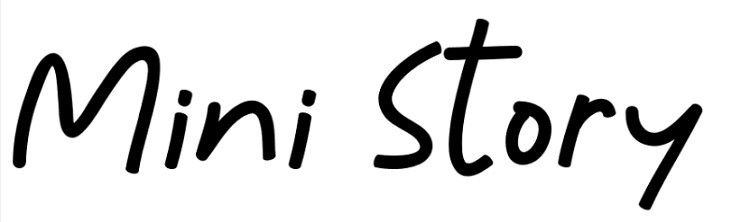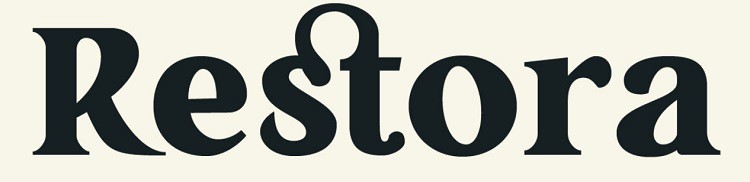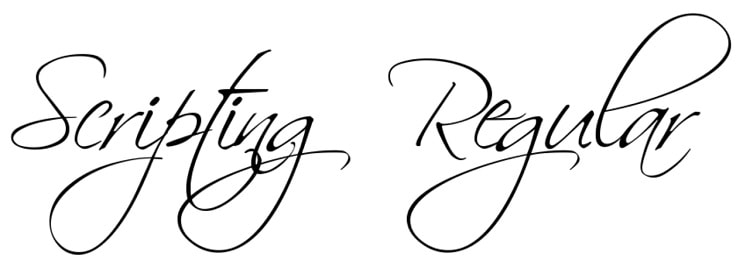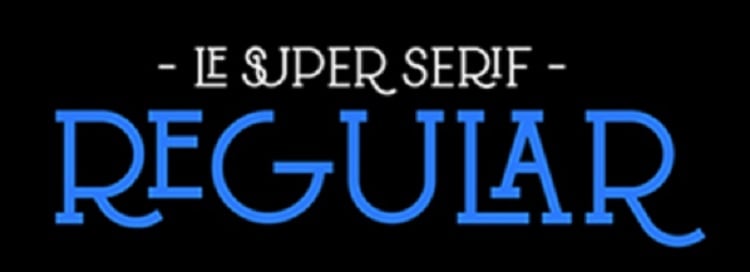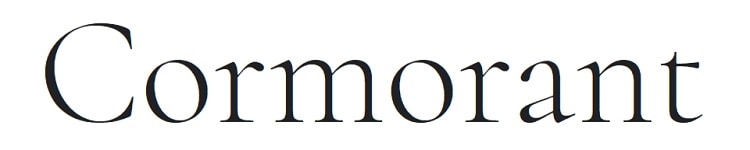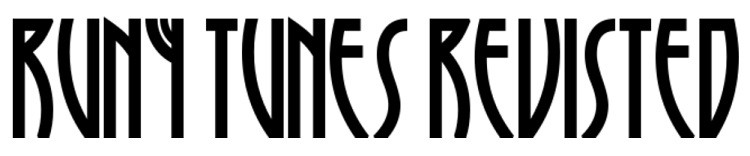
There are tens of thousands of free fonts online for download. Most word processing programs come with pre-installed fonts, Google offers them and you can download them from various repositories and upload to your fonts folder. However, if you want your designs to stand out, you need to have a collection of unusual choices fitting different moods and occasions.
There are four primary kinds of type, and within each typeface, there are hundreds of variations of fonts in different sizes and styles. For example, you might have a font family with serifs and ligatures, but you could have 10 point bold, 12 point italic or 14 point regular text. There are more combinations than you could count.Â
The four types of fonts include serif, sans serif, script and decorative. There are both paid and free fonts available in every category. For this article, we’ve narrowed down your options to 10 truly captivating free fonts you can use. We also list some ideas for where to use each one.
1. The Quick South St
The Quick South St grabs user attention from the minute you see it. The free font has a highly industrial look perfect for manufacturing facilities or industrial businesses. It also has a grunge look that would work for street artists, musicians and other creatives.
The font is by Rodrigo Gonzalex of Southtype and is free for personal and non-profit use. There is a bit of a gray area about usage for commercial ventures, but if you aren’t reselling the font, you should be okay. If in doubt, contact the creator directly. The font is sans serif with grids inside the eye of some letters and the counter of others.
2. Mini Story
Designed by Syaf Rizal, Mini Story is free for personal or commercial use. With a distinct handwritten look, the font has a casual feel of someone jotting down some thoughts. The tail of letters fall well below the baseline, giving the font a tall x-height.
3. Alloy Ink
Alloy Ink is another of the free fonts available for commercial use. The font has a different look to it, giving it a futuristic feel. The letters are more like street art you’d see on the side of the building, with fat strokes and a three-dimensional flare.
Utilize a heavy font for flyers advertising kids’ events or school activities. You could also utilize Alloy Ink for a blog heading when you want the title to stand out in bold relief.
4. Scripting Regular
If you seek free fonts with a bit more formality, Scripting Regular is a gorgeous, loopy font perfect for any serious occasion. The sans serif script font utilizes swooshes for the terminals or peaks of letters and swirls for the tails of others.
The script is flowing and calligraphy-like. Use this font for business logos for companies serving women, wedding planning or other formal occasions. There is no charge to use this font for personal or commercial reasons.
5. Le Super Serif
If you’re looking for a captivating serif font, Le Super Serif adds a ton of interest to any design. This unique letterform features uppercase typeface has a bit of modern flair and some input from old west style. It comes with 88 ligatures and special alternate characters. You can use the font in regular or semibold.
The font comes from SuperBruut Studio. The edges of the letters have a blocky look, but other sections are flowing. Special characters allow you to overflow some of the letters. The style works particularly well for logos.
6. Cormorant
If you’re looking for free fonts that are Google compatible, Cormorant is a great option. Created by designer Christian Thalmann, it is a display type font. You’ll download 45 font files with nine unique visual styles. Some of the options include Roman, Italic, Infant, Garmod, Upright Cursive and Unicase. Choose between weights of light, regular, medium, semibold and bold.
Thalmann points to Claude Garamont’s work as his inspiration but did not focus on any single existing design for a starting point. He drew most of the glyphs by hand and pulled on Garamond for inspiration but not specifics.
Although you can use this font for either a title or body text, it pairs best with styles such as Libre Franklin, PT Sans and Montserrat. Use Cormorant when you need a more serious tone to your design, such as for a financial institution or educational seminar.
7. Restora
If you’re looking for old-fashioned serif free fonts, Restora is an excellent option for vintage glamour. Created by Nasir Udin, the font comes in eight different weights, including thin and italics. The free version comes with fewer options than the paid, but it is still quite adaptable to various projects.
Restora is perfect for book covers, logos and headings. It comes with swashes and ligatures as well as style options to give your design a unique style unlike anyone else’s.